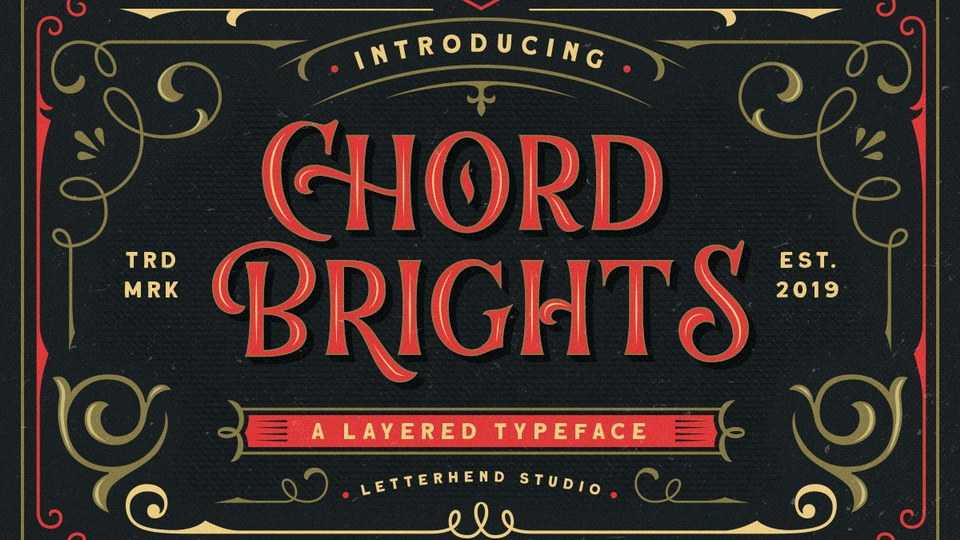
Download Chord Brights font, a one of a kind layered decorative typeface with a nostalgic feel to match for your project with retro or vintage theme.